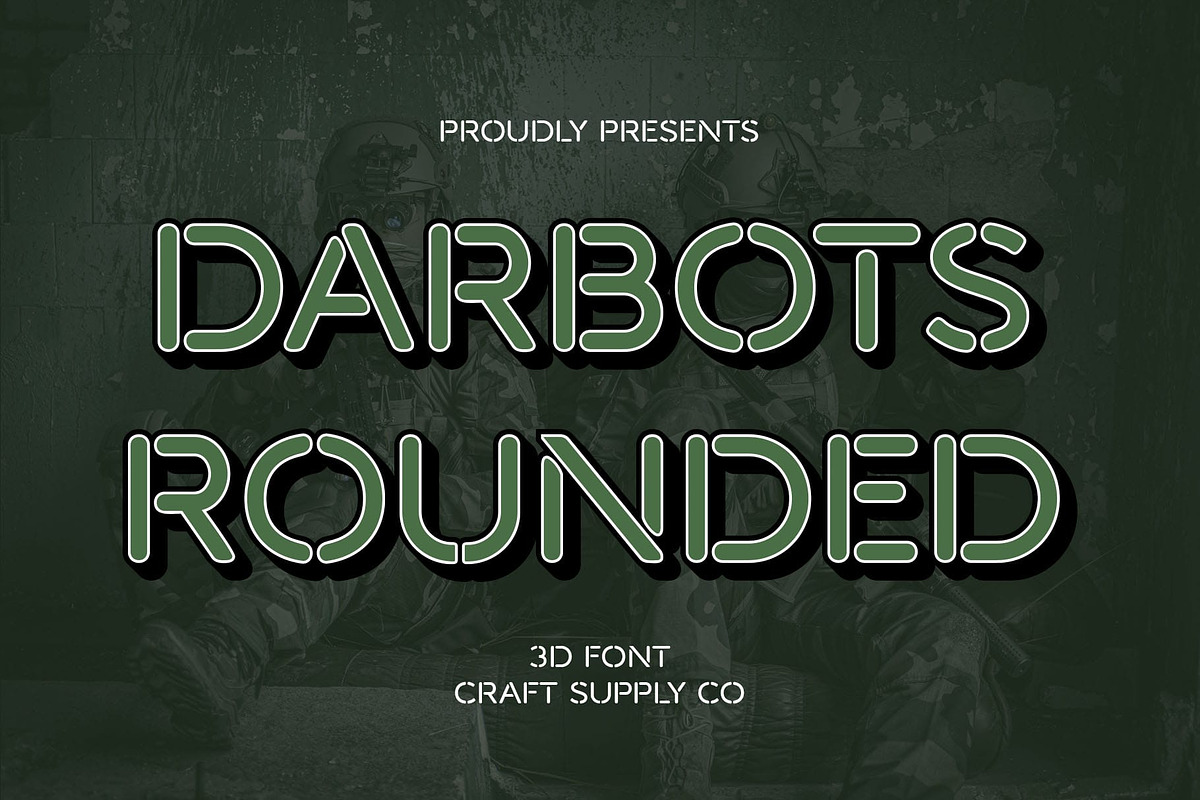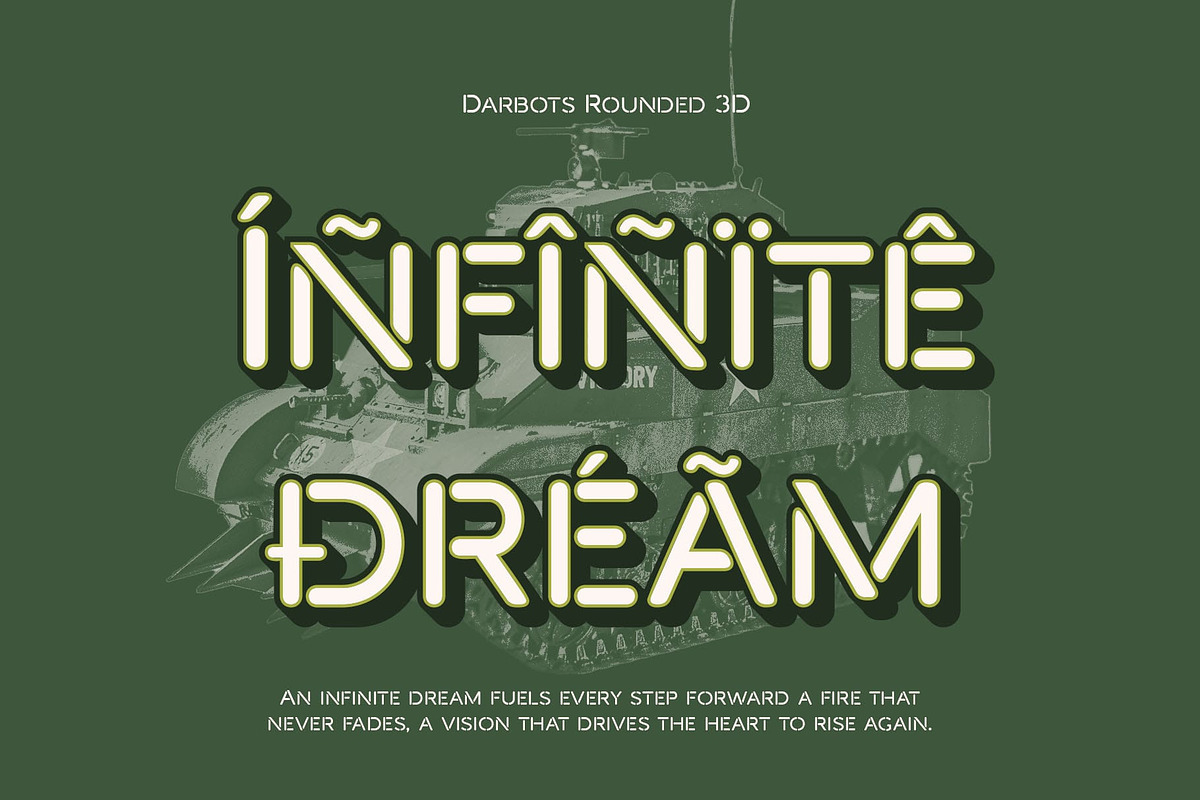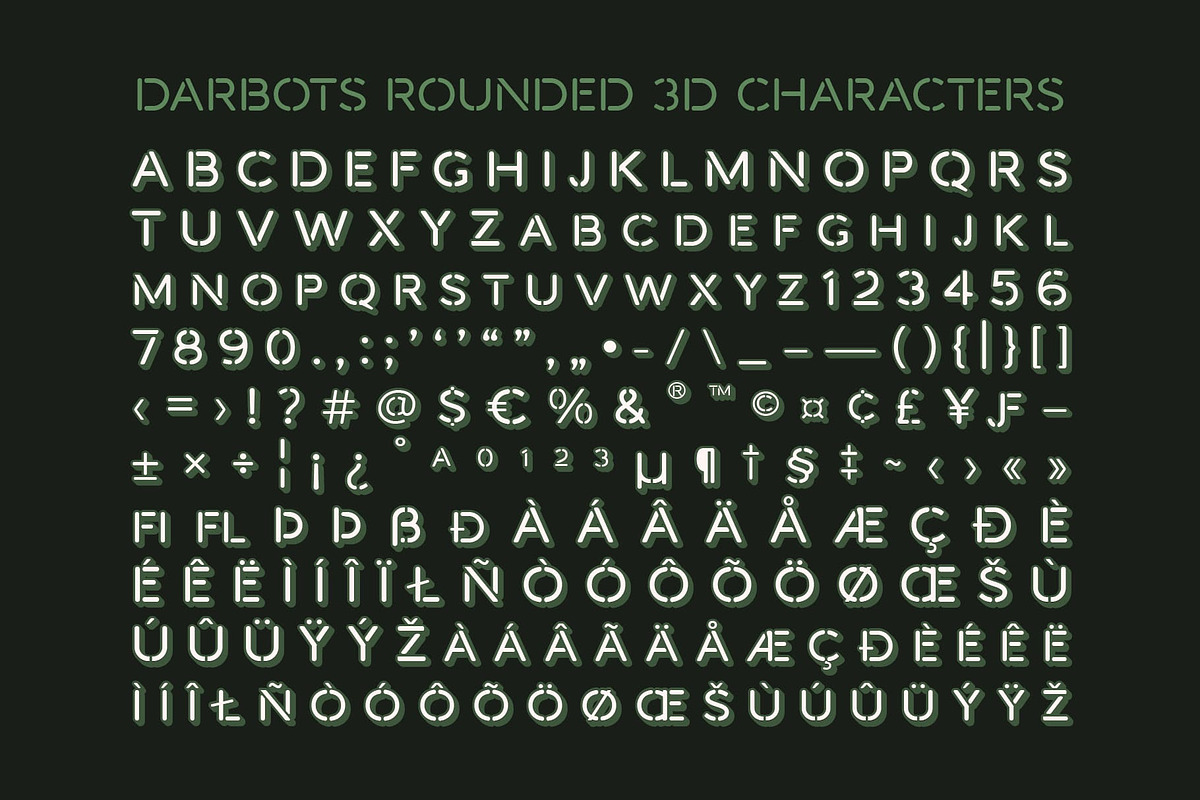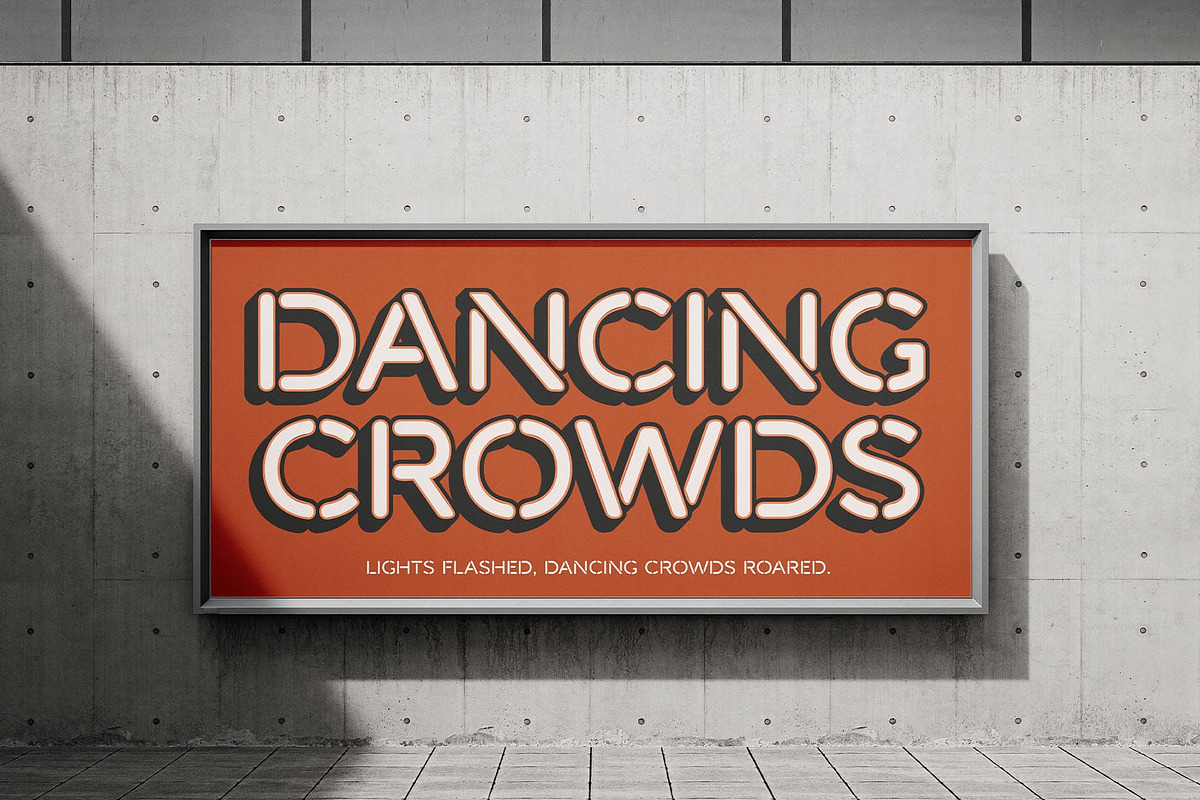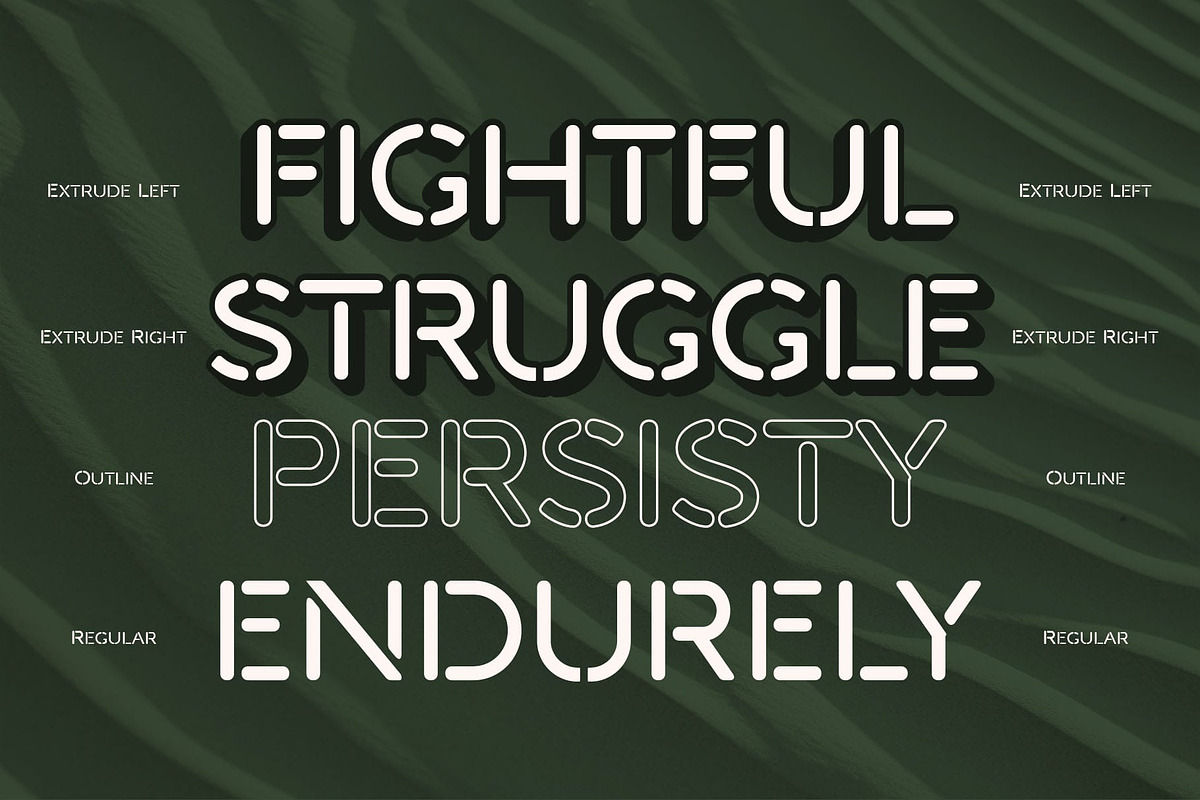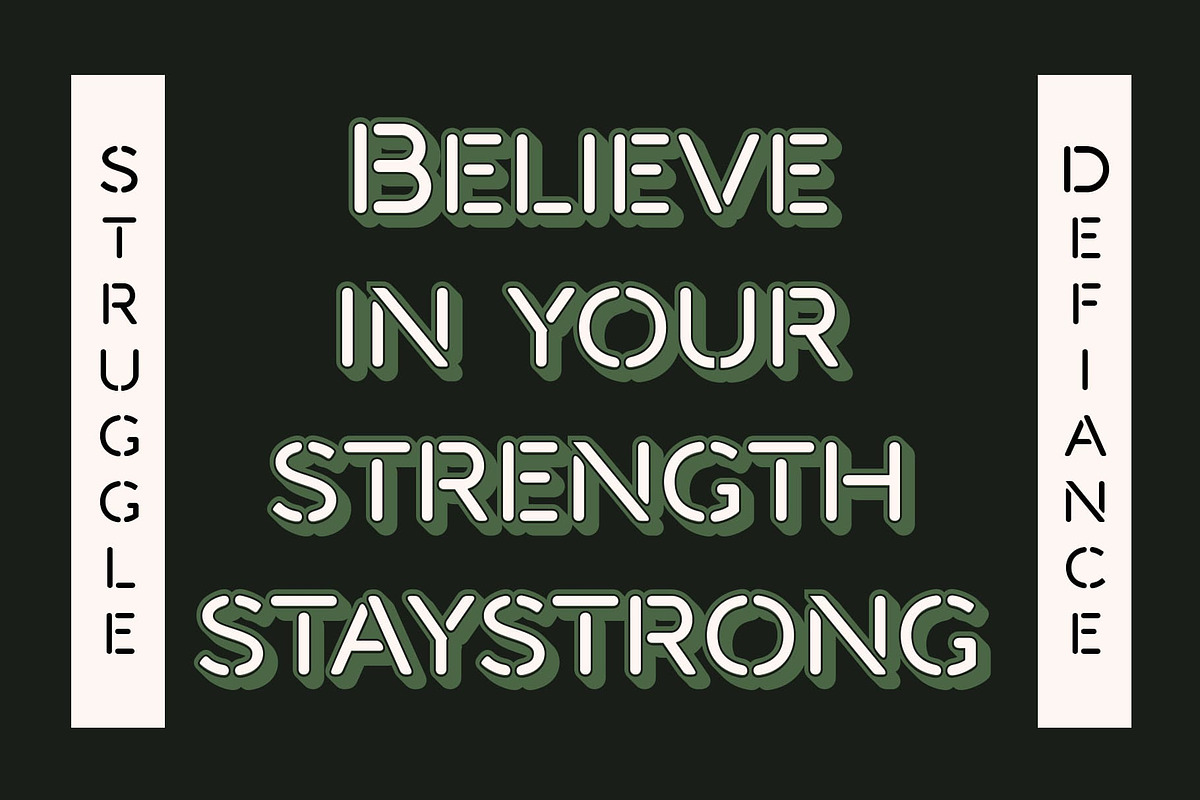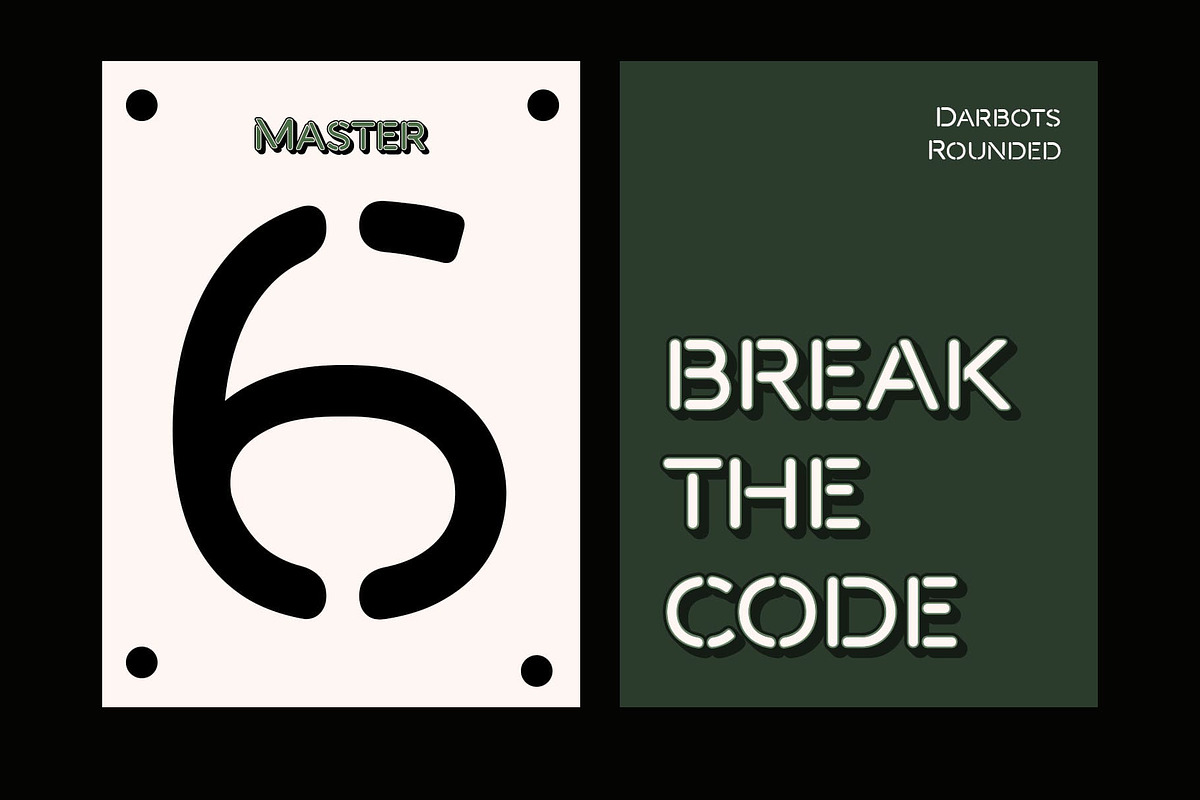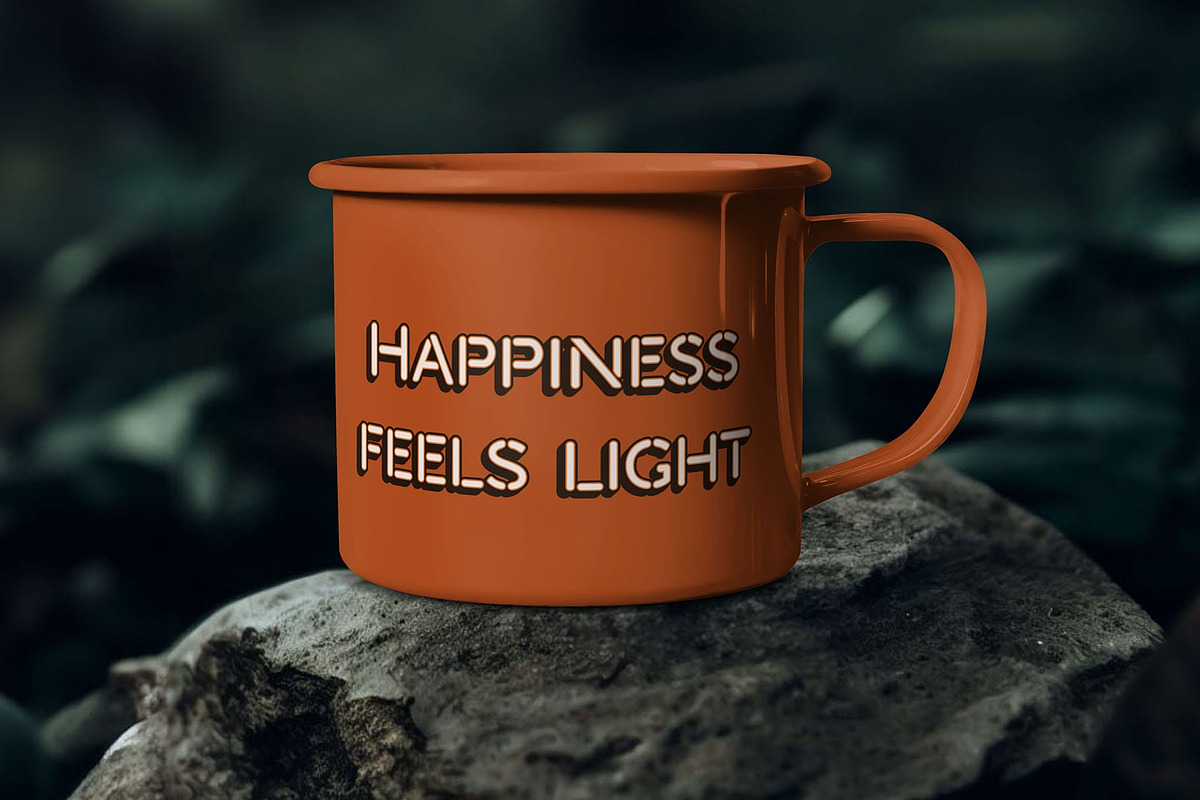
Darbots Rounded 3D
Darbots Rounded 3D – Modern Depth with Friendly Precision
Modern Rounded Stencil Sans Serif with 3D Effect Darbots Rounded 3D is a modern sans-serif display font that combines a clean stencil structure with rounded terminals and a bold 3D effect. It brings together precision, friendliness, and futuristic flair—making it ideal for standout design projects that need to look innovative and approachable.
Stencil Form with Rounded Softness The font’s minimalist stencil structure provides a technical and modular feel, while its rounded corners soften the geometry, creating a balance between industrial edge and warmth. This unique combination allows the font to appear both structured and inviting.
Dimensional 3D Effect for Visual Impact The built-in 3D effect gives this stencil font an added layer of dimensionality, enhancing visual interest and making text appear to leap off the page. This quality makes it particularly eye-catching in display settings, from posters to digital banners.
Futuristic Yet Approachable Aesthetic Darbots Rounded 3D strikes a visual harmony between modern minimalism and creative personality. Its friendly, futuristic aesthetic makes it suitable for tech branding, product packaging, innovation-driven campaigns, and more.
Perfect for Bold, Creative Displays Whether you’re designing logos, event posters, packaging, or digital media, Darbots Rounded 3D delivers clarity with character. It’s a powerful choice for projects that need a unique, modern typeface that doesn’t sacrifice approachability for innovation.